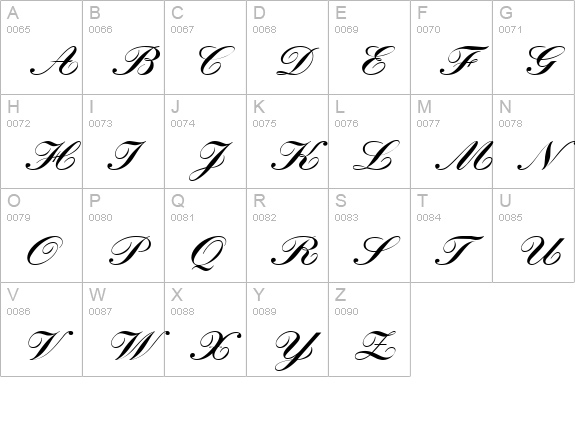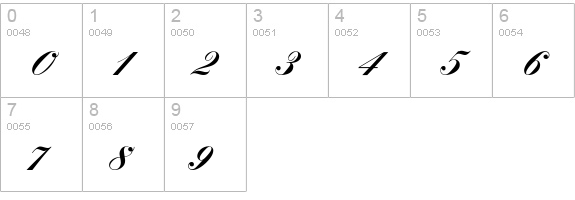
TR Kastler Bold Italic is a strong, high-contrast, italic variant in the TR typeface family \xE2\x80\x94 well suited to headlines, attention-grabbing titles, and strong calls-to-action.
TR Kastler Bold Italic font is a stunning and versatile typeface that exudes elegance and sophistication. With its bold and italic design, this font is perfect for making a bold statement in any project. The sleek curves and sharp angles of TR Kastler Bold Italic font give it a modern and stylish look that will elevate your designs to the next level. Best of all, TR Kastler Bold Italic font is available for free download at FontsMarket.com. This means you can easily access this beautiful font and use it in your projects without any cost. Whether you're designing a logo, creating a poster, or working on a branding project, TR Kastler Bold Italic font is sure to make a lasting impression. Don't miss out on the opportunity to enhance your designs with this exceptional font. Download TR Kastler Bold Italic font today from FontsMarket.com and take your projects to new heights of creativity and professionalism.